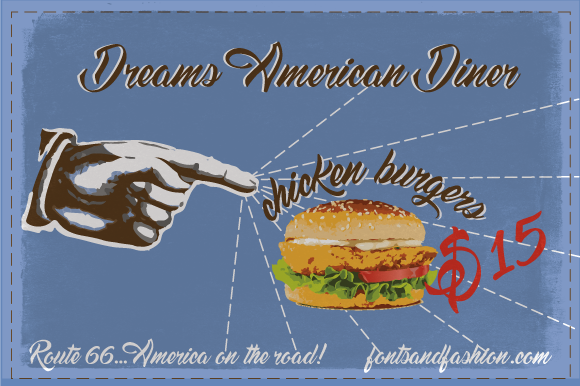
Dreams American Diner Font: A Timeless Vintage Script for Fashion Branding and Editorial Designs
In the world of typography, fonts play a crucial role in defining the aesthetic and tone of a brand or design. For those seeking a unique and stylish script font that exudes a sense of nostalgia and sophistication, Dreams American Diner Font is an excellent choice. This beautiful, well-balanced, and vintage-styled script font is perfect for fashion branding, editorial designs, and various other creative projects.
What is Dreams American Diner Font?
Dreams American Diner Font is a carefully crafted script font that embodies the essence of classic American diners. Its smooth curves and elegant lines evoke a sense of nostalgia, making it an ideal choice for designers seeking to add a touch of vintage charm to their work. This font is designed to be versatile, allowing it to be used in a wide range of applications, from fashion branding and editorial designs to packaging and advertising.
Key Features of Dreams American Diner Font
Beautiful and Well-Balanced Design
Dreams American Diner Font boasts a stunning, well-balanced design that is sure to capture attention. Its smooth curves and flowing lines create a sense of elegance, making it perfect for high-end fashion branding and editorial designs.
Vintage Styled Script
The font’s vintage-inspired design is reminiscent of classic American diners, evoking a sense of nostalgia and timelessness. This makes it an excellent choice for designers seeking to create a retro or vintage aesthetic.
Perfect for Fashion Branding
Dreams American Diner Font is an excellent choice for fashion branding, particularly for designers seeking to create a luxurious and sophisticated look. Its elegant lines and smooth curves make it perfect for high-end fashion labels, boutiques, and accessories.
Ideal for Editorial Designs
In addition to fashion branding, Dreams American Diner Font is also well-suited for editorial designs, such as magazines, newspapers, and books. Its classic design ensures that it will remain legible and stylish, even in smaller font sizes.
Benefits of Using Dreams American Diner Font
Enhance Your Brand’s Aesthetic
By incorporating Dreams American Diner Font into your branding, you can instantly elevate your brand’s aesthetic and create a more sophisticated look. This font is sure to make your brand stand out from the competition and leave a lasting impression on your target audience.
Versatility
Dreams American Diner Font is an incredibly versatile font that can be used in a wide range of applications. Whether you’re designing a logo, brochure, or website, this font is sure to adapt seamlessly to your design.
Easy to Read
Despite its elegant design, Dreams American Diner Font remains easy to read, even in smaller font sizes. This makes it perfect for body text, headlines, and titles.
How to Use Dreams American Diner Font
Fashion Branding
Use Dreams American Diner Font to create stunning fashion branding materials, such as logos, business cards, and brochures. Its elegant design makes it perfect for high-end fashion labels and boutiques.
Editorial Designs
Incorporate Dreams American Diner Font into your editorial designs, such as magazines, newspapers, and books. Its classic design ensures that it will remain legible and stylish, even in smaller font sizes.
Packaging and Advertising
Use Dreams American Diner Font to create eye-catching packaging and advertising materials, such as billboards, posters, and flyers. Its vintage-inspired design is sure to capture attention and leave a lasting impression.
In conclusion, Dreams American Diner Font is a beautiful, well-balanced, and vintage-styled script font that is perfect for fashion branding, editorial designs, and various other creative projects. Its smooth curves and elegant lines evoke a sense of nostalgia, making it an excellent choice for designers seeking to add a touch of vintage charm to their work. With its versatility, ease of use, and stunning design, Dreams American Diner Font is sure to become a staple in your font collection.